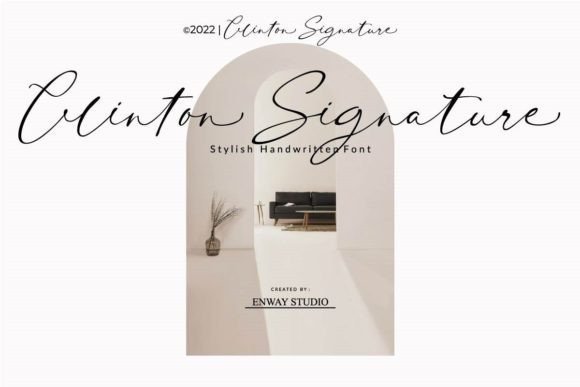
Unleash Your Creativity with the Clinton Signature Font
Have you ever been working on a design project, pouring your heart and soul into it, only to feel like something’s missing? That’s where the Clinton Signature Font comes in – a beautiful and delicate script font that adds a touch of elegance and class to any design. Whether you’re creating a wedding invitation, a business logo, or a marketing brochure, this font is sure to elevate your work to the next level.
Crafted specifically for designers who crave a fresh and sophisticated look, the Clinton Signature Font is the perfect solution. With its PUA encoding, you can easily access all the glyphs and ligatures, giving you complete control over your design. Whether you’re a seasoned pro or just starting out, this font is a valuable asset to have in your design toolkit.
- Unique Characteristics: Features a flowing, cursive script with a distinctive flair at the ends of letters, giving it a personal and signature-like feel.
Clinton Signature Font Review
I’ve had the chance to work with the Clinton Signature Font, and I must say it’s a unique addition to any project. ✨ The font’s distinctive flair is sure to catch attention and convey a sense of sophistication.
Here are some of the things I like about it:
- ✨ The Clinton Signature Font has a clear, legible design that’s perfect for body text and headings.
- ✨ The font’s modern aesthetic makes it a great fit for contemporary branding and design projects.
- ✨ The font comes in a variety of weights and styles, allowing for a high degree of customization.
- ⚠️ The font may not be the best choice for projects that require a more conservative or traditional look.
- ⚠️ Some users may find the font’s unique flair overwhelming or difficult to read in certain contexts.
Overall, I think the Clinton Signature Font is a solid choice for designers looking to add some visual interest to their projects. While it may not be the best fit for every project, it’s definitely worth considering for those that need a bold, modern touch.
Use the Clinton Signature Font for headings and titles to add a touch of sophistication and elegance to your designs. Experiment with different font sizes and colors to create visual interest. Consider pairing the font with a neutral background to make the text stand out.
The Clinton Signature Font is ideal for:
- Business presentations and reports